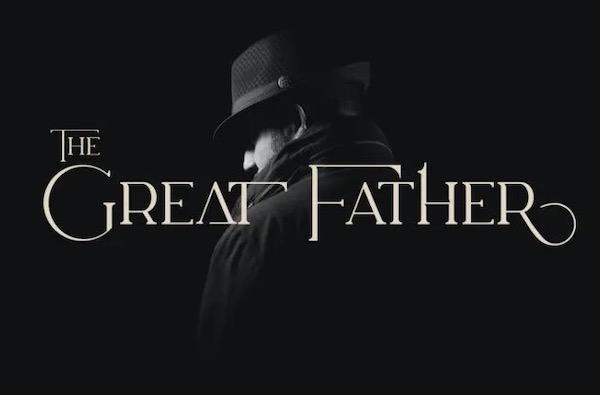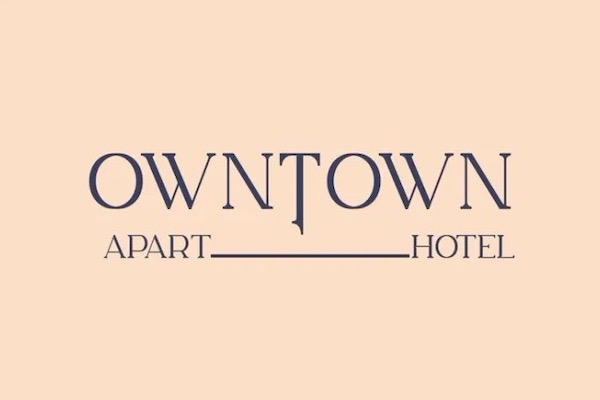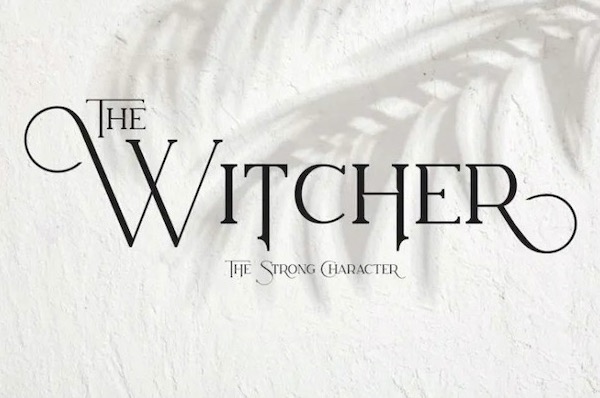
THE WITCHER is a classy and dynamic serif font that was created and shared by Teweka. It’s inspired by witches in the game and includes many alternatives that you can use for your needs such as branding, logotype, cards, and more.
The Witcher Serif Font